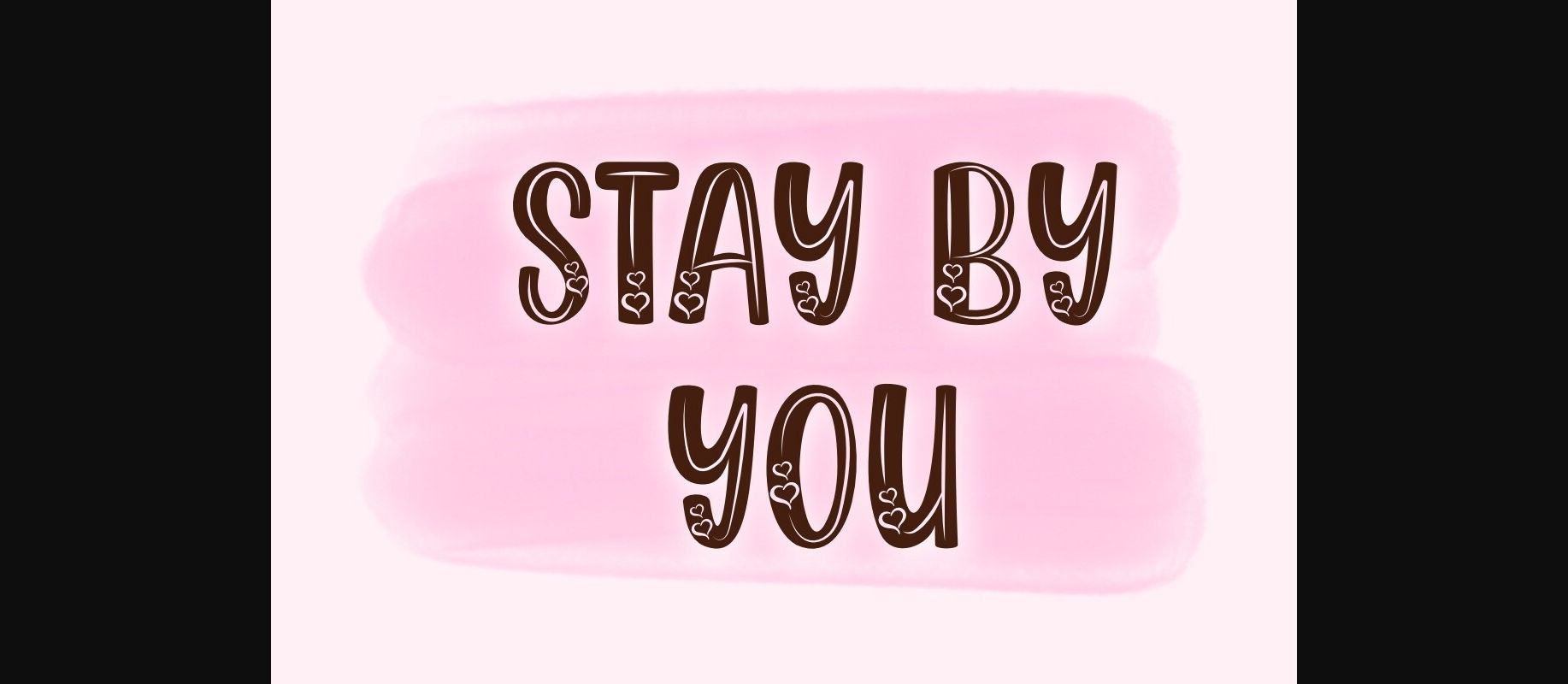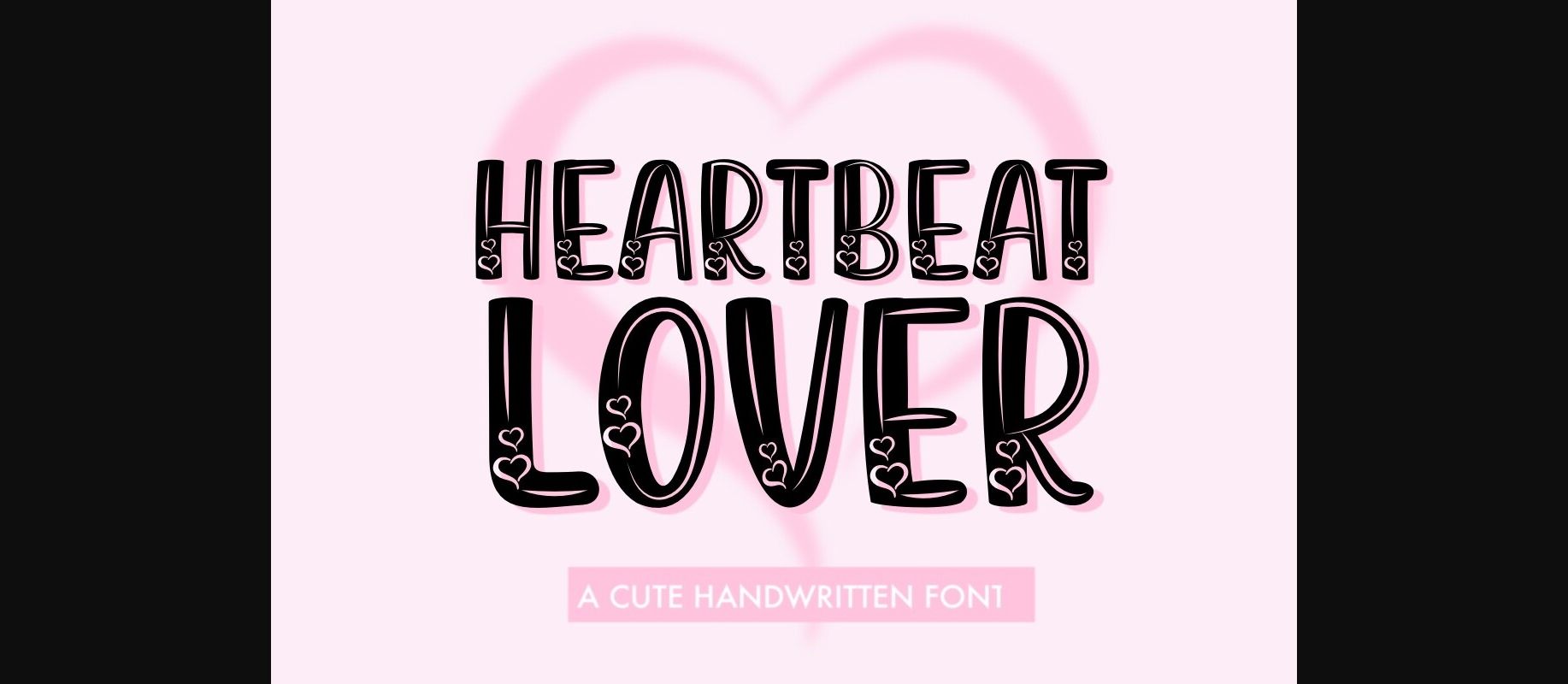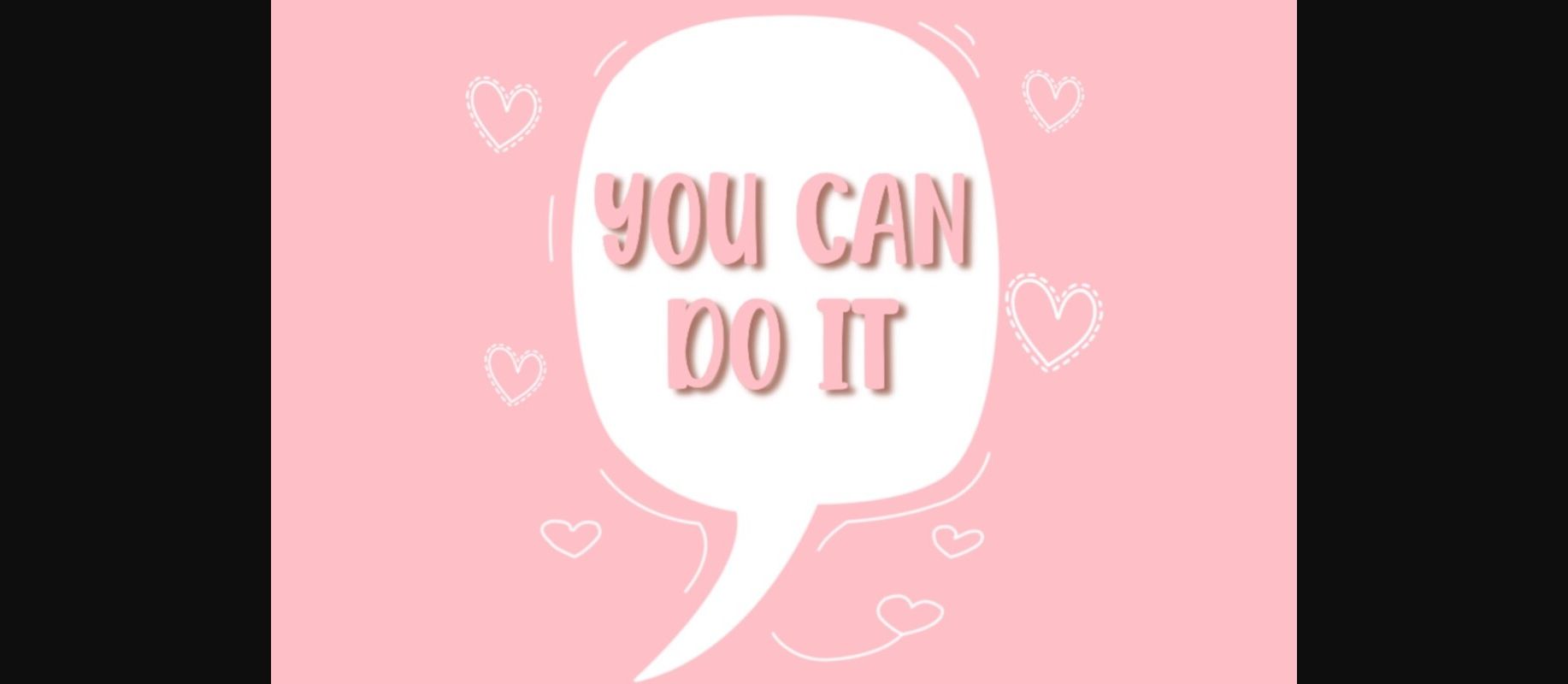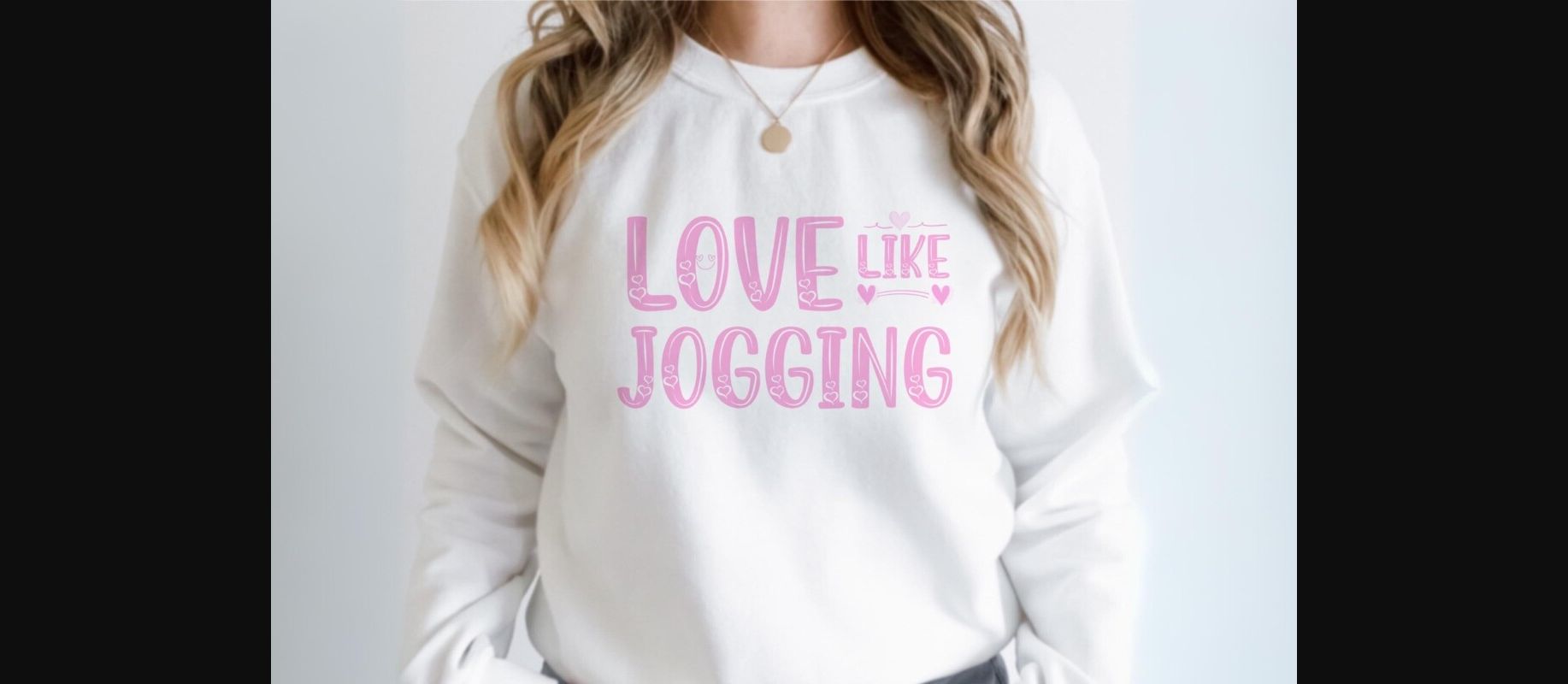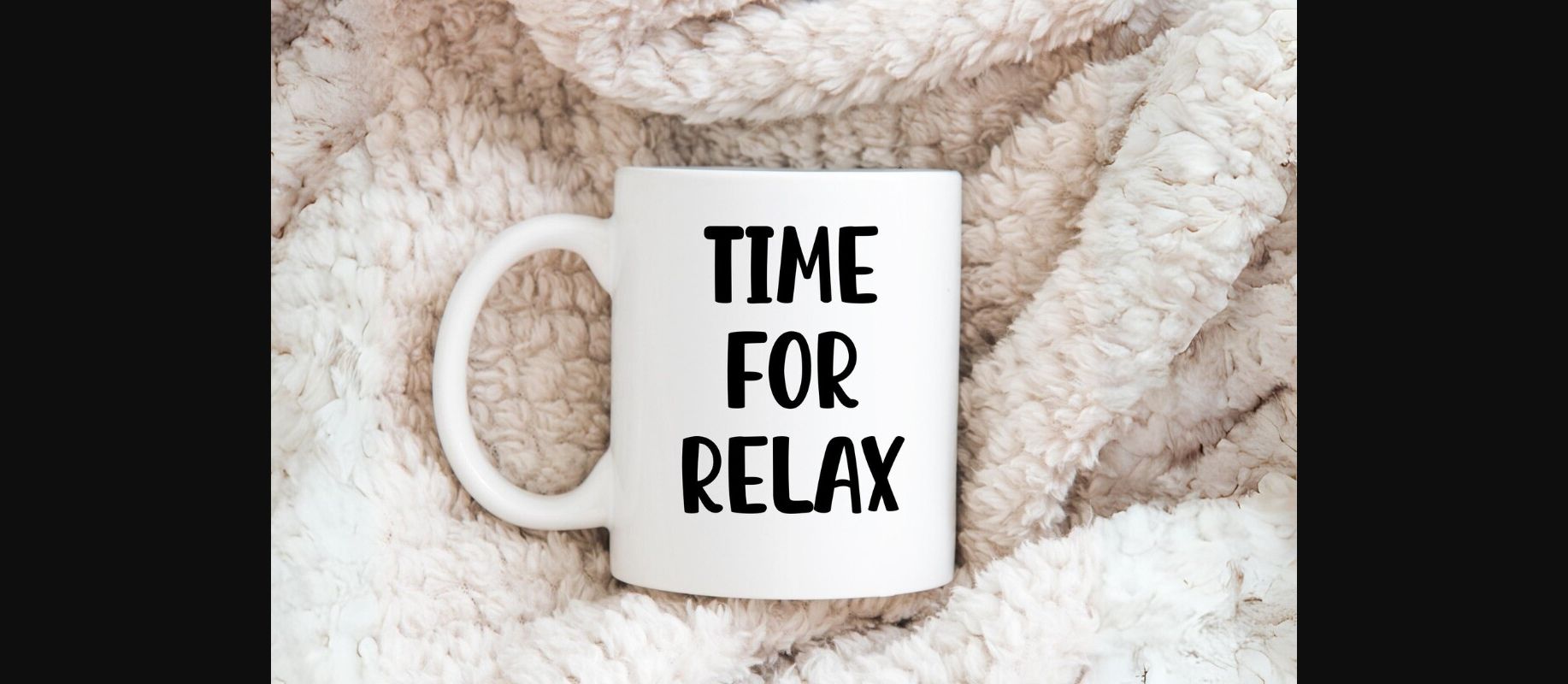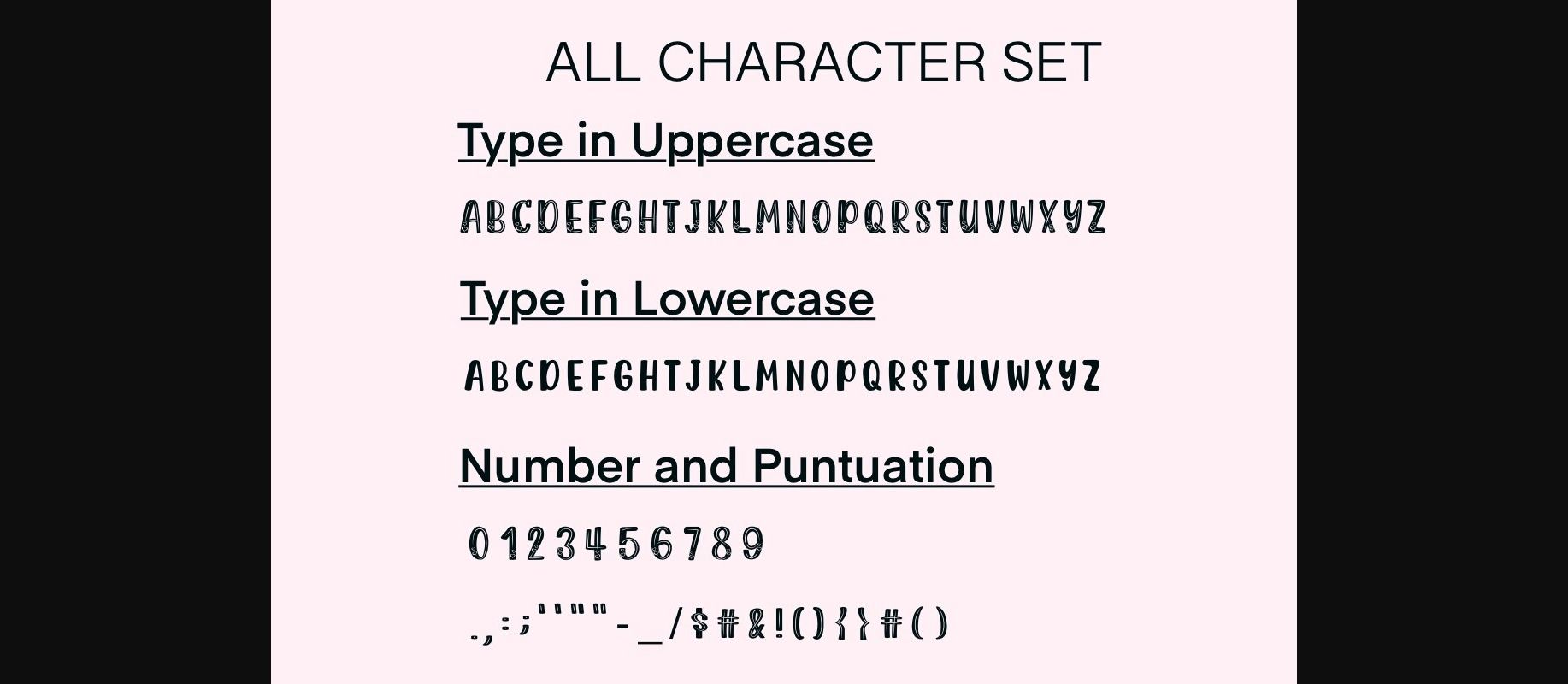
Heartbeat Lover Font
About Heartbeat Lover Font
Heartbeat Lover Font is a cute decorative font that uses bold letters adorned with charming heart and inlined-center alphabet. Inspired by a ramantic vibe, its casual charm will help you create lovely, brighing designs. It is perfect for creating a wide variety of designs, such as banners, social media posts, cards, content, mugs, t-shirt designs, stationery, bags, hats, pillows, stickers, and much more.Masterfully designed to become a true favorite, this font has the potential to bring each of your creative ideas to the highest level!